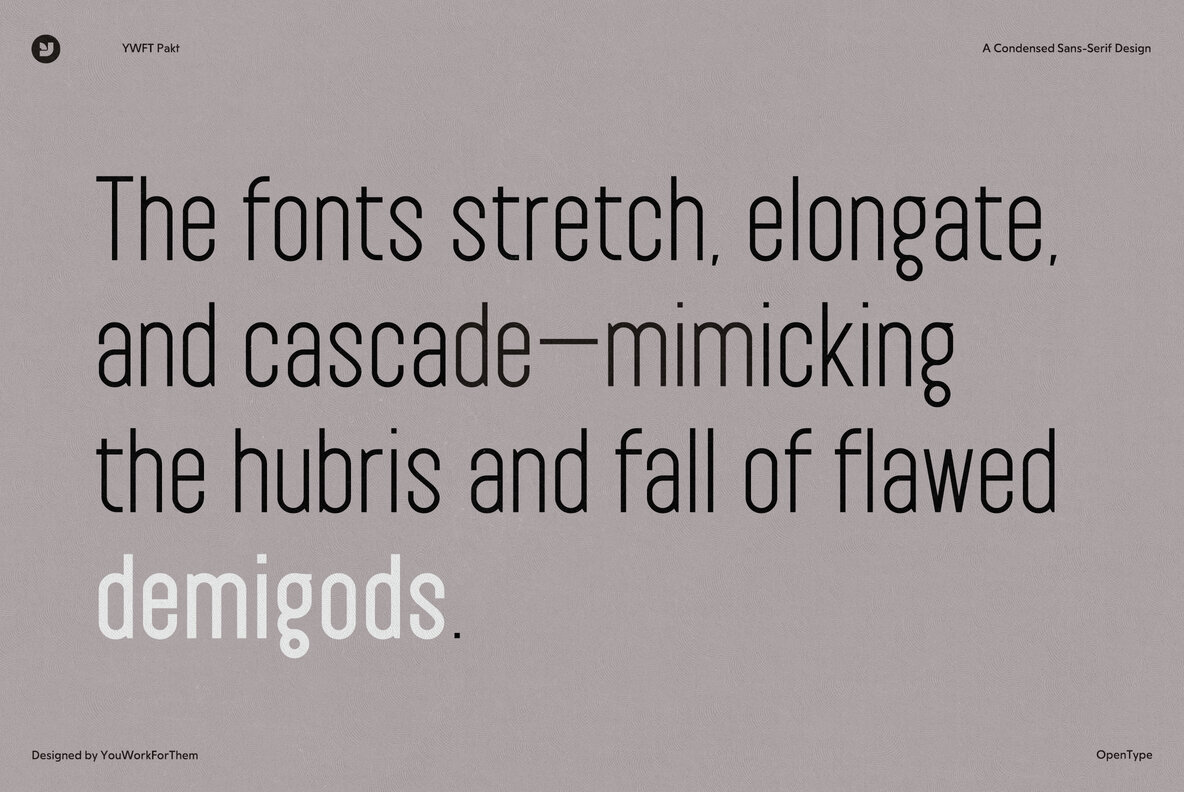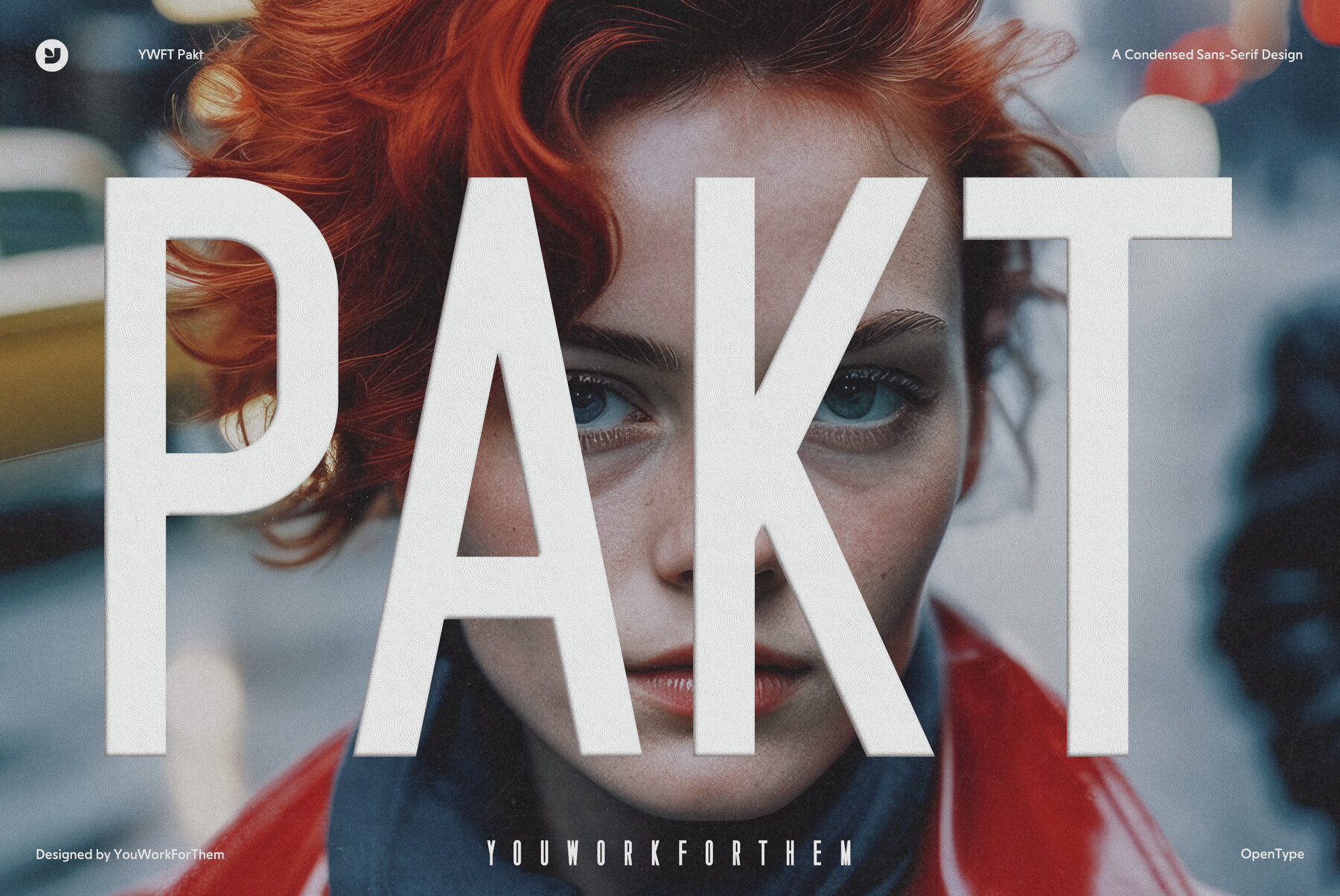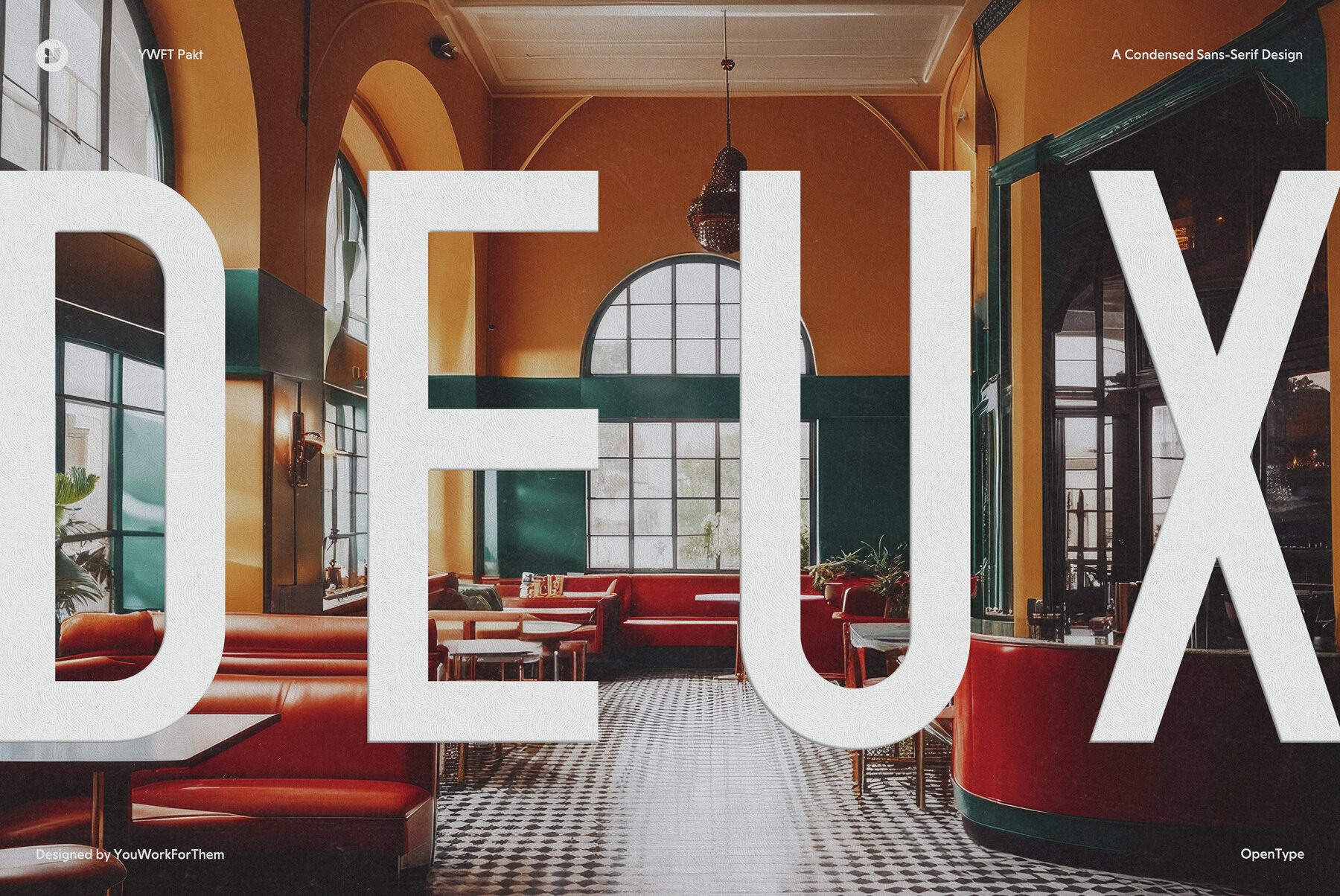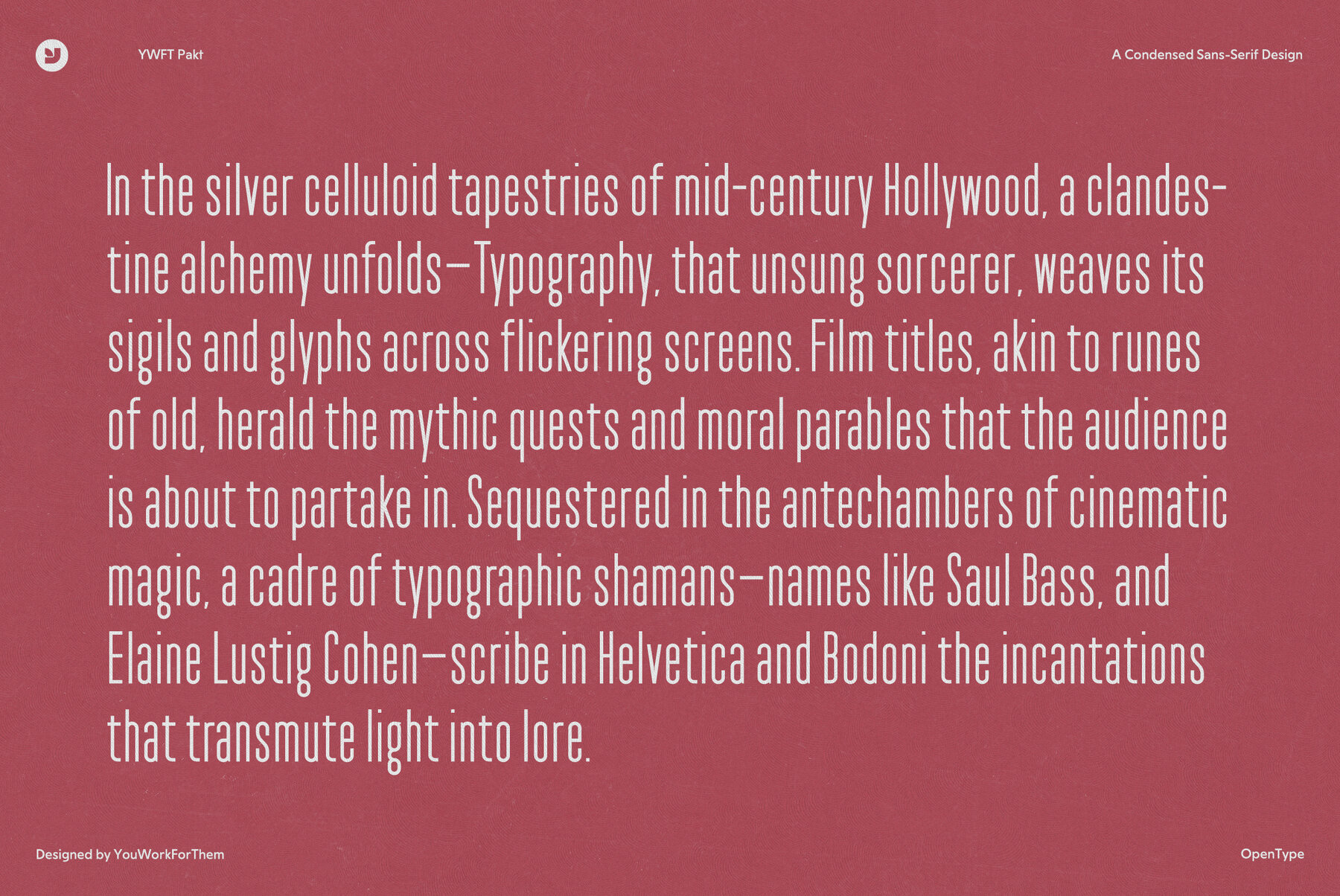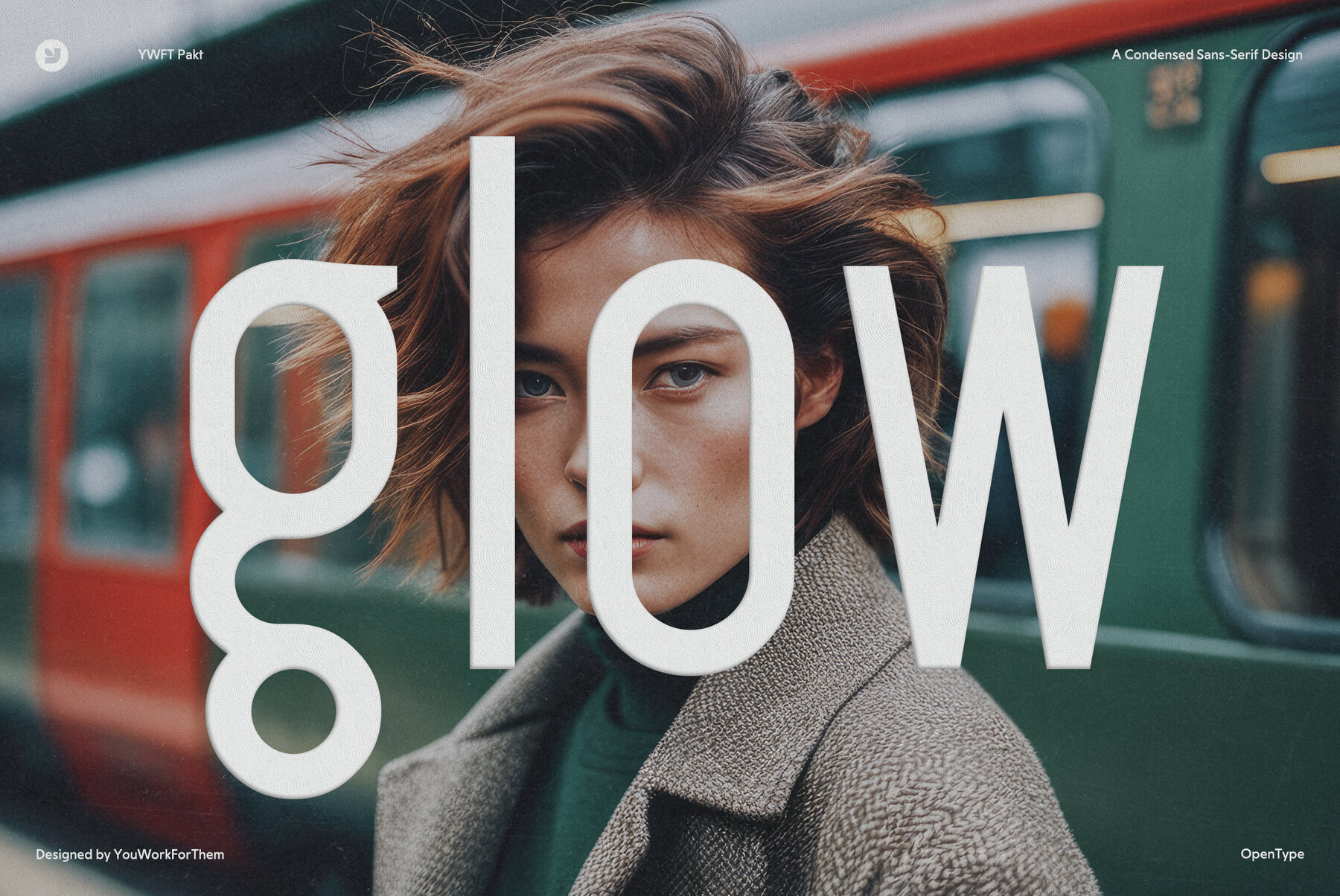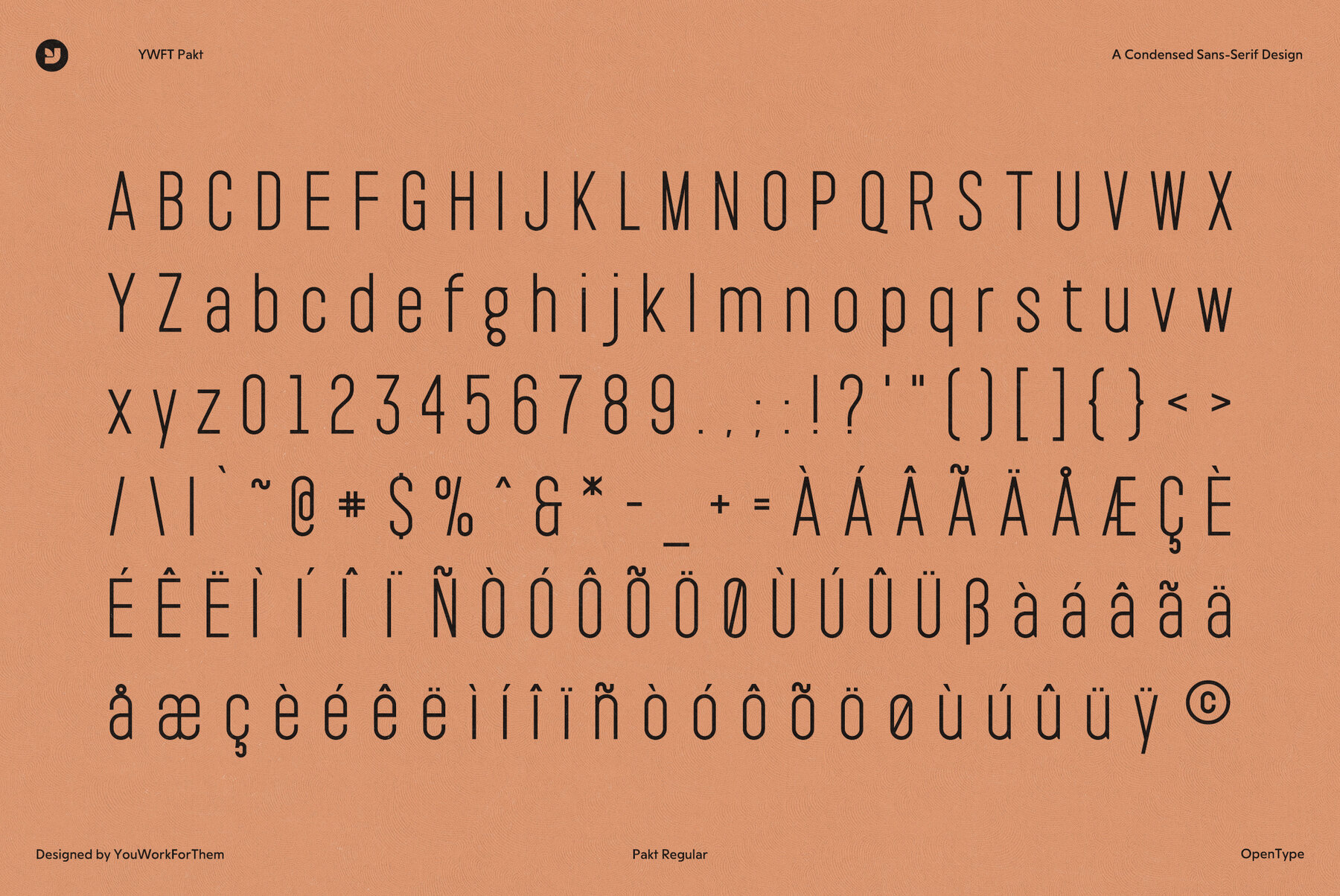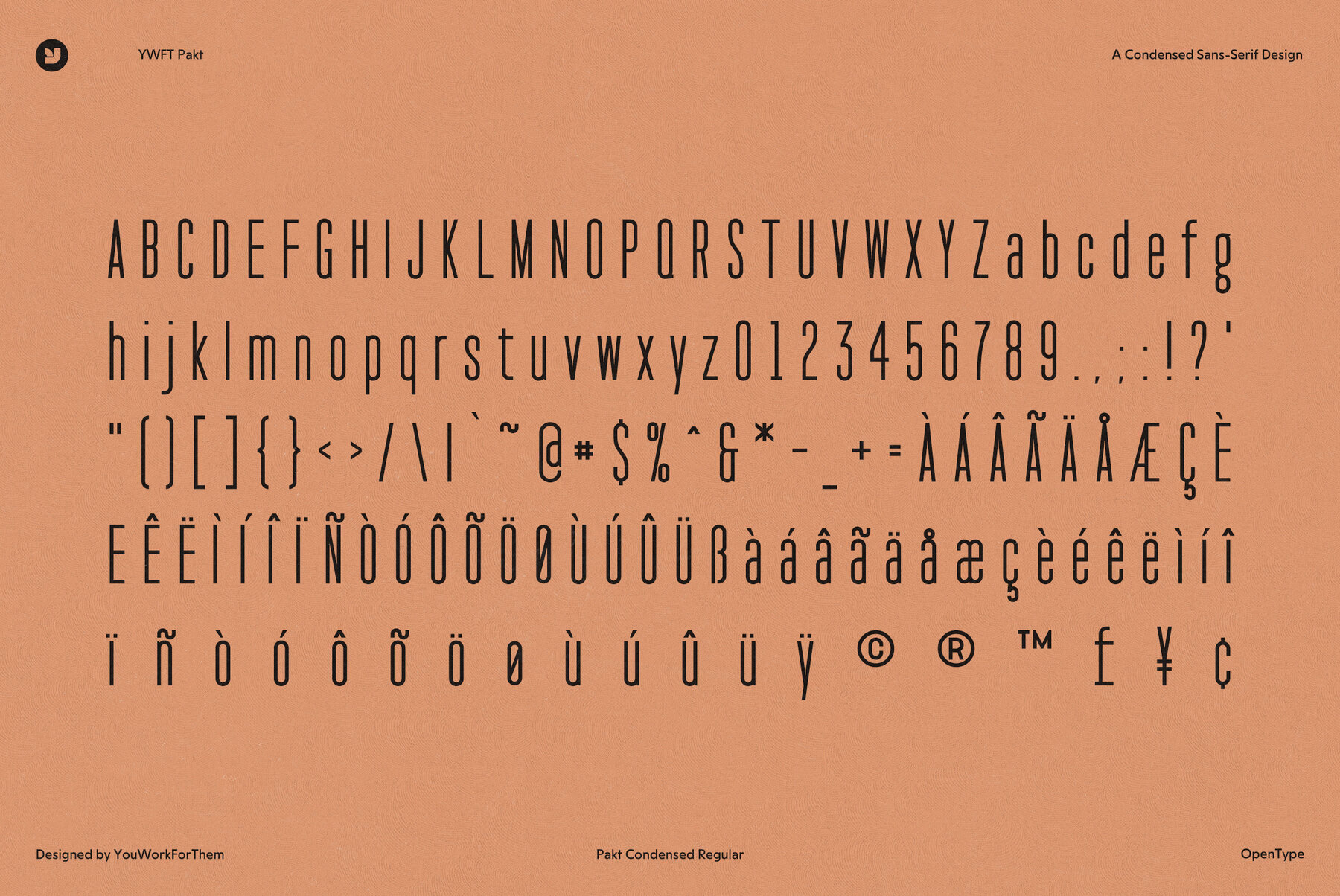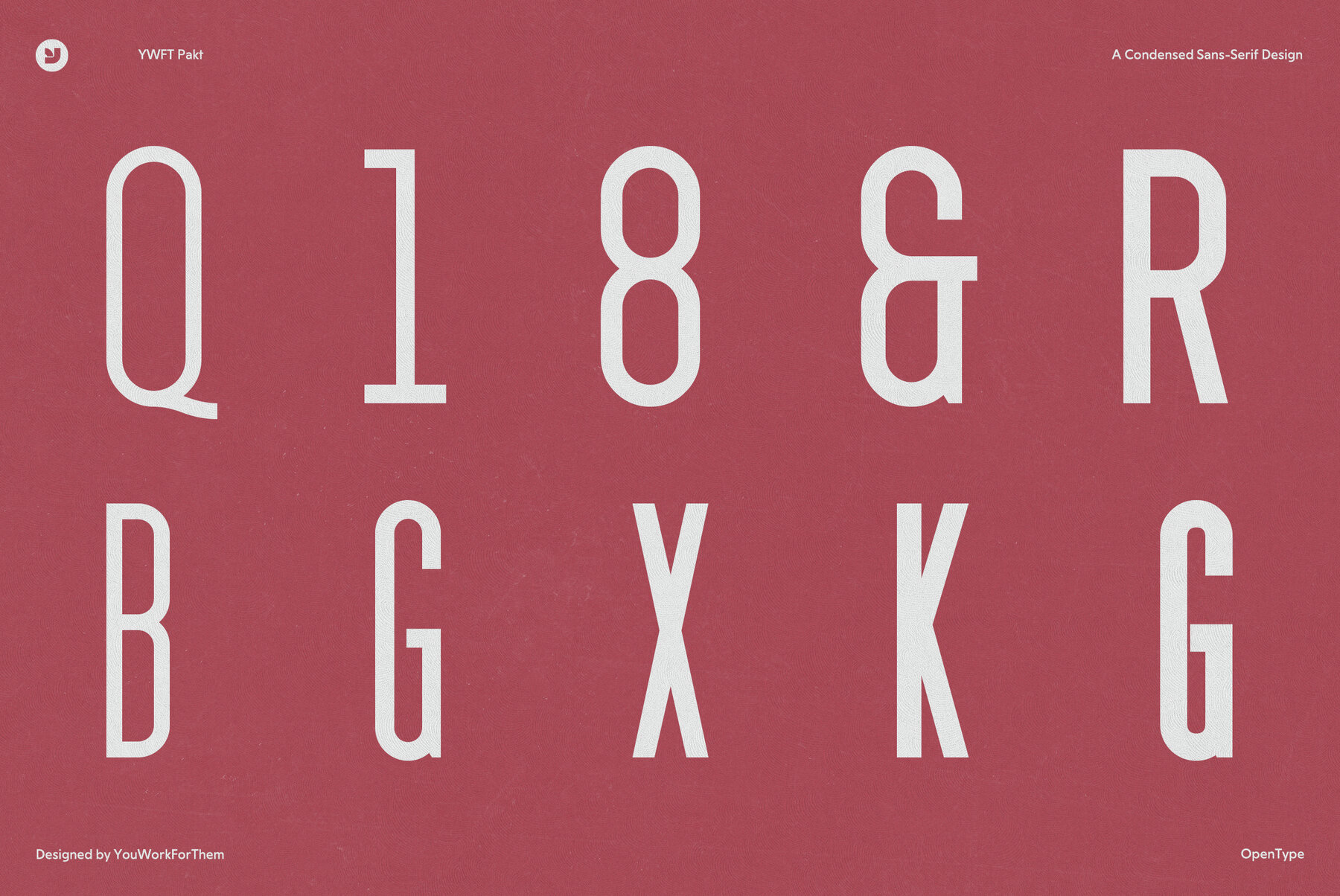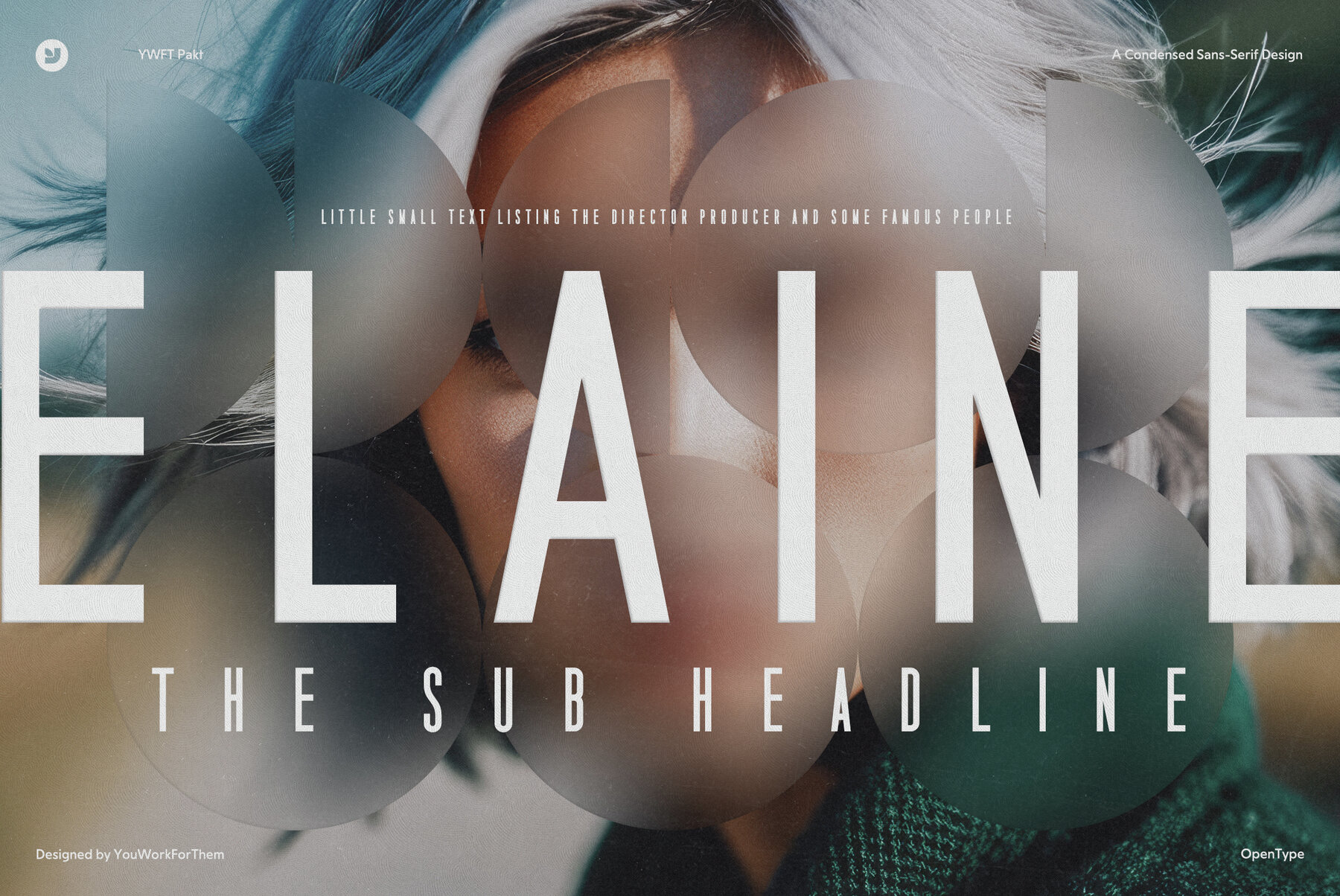
YWFT Pakt Font
Unveiling YWFT Pakt, the embodiment of modern and versatile typography. Pioneered by the renowned design team, YouWorkForThem, this condensed and sans-serif typeface, blending ten unique weights, elevates creativity for graphic designers and marketing firms alike. YWFT Pakt's design innately infuses a sense of respectability and seriousness, empowering your brand with a distinct authority. However, it doesn't sacrifice an ounce of freshness that makes your designs feel effortlessly up-to-the-minute and relevant. A closer look at the YWFT Pakt reveals a typeface doesn't merely convey words but orchestrates a symphony of storytelling that resonates with your audience. It’s the secret ingredient that allows graphic designers to create designs that not only captivate but also resonate on a deeper level. For marketing firms planning to breathe new life into their brand presence, YWFT Pakt provides a serif-free highway to enthralling and effective visual communication. Key Features of YWFT PaktIntroducing YWFT Pakt: The Typographical Masterpiece for the Modern Graphic Designer